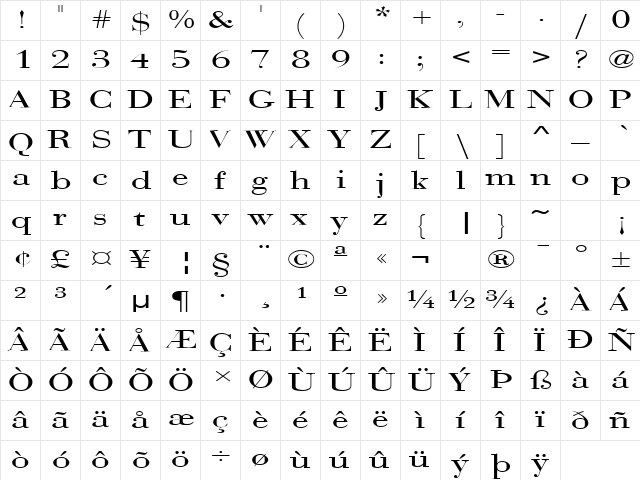
SweezExtended Regular
SweezExtended Family
SweezExtended Regular
SweezExtended Regular Font Preview
SweezExtended Regular Uppercase Preview
SweezExtended Regular Lowercase Preview
SweezExtended Regular Numeric Preview
SweezExtended Regular Character Map
Complete SweezExtended Regular glyph index. Displaying only characters natively supported by SweezExtended Regular font.
SweezExtended Regular Character Map
SweezExtended Regular Test Drive
Design Context for SweezExtended
SweezExtended is a composed and adaptable typeface that performs quietly and consistently across a wide range of design contexts.